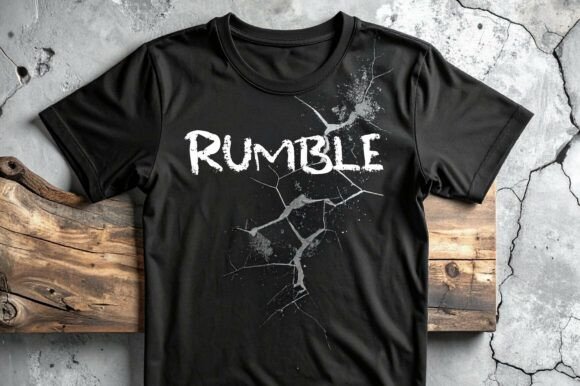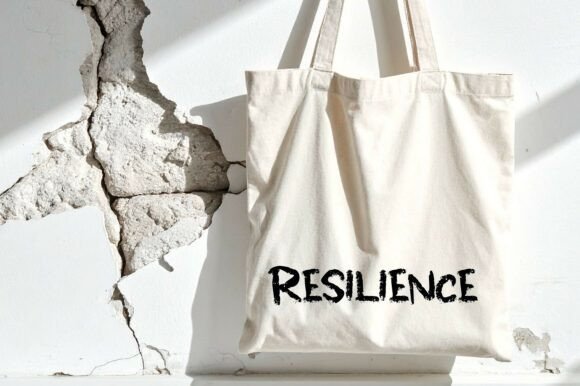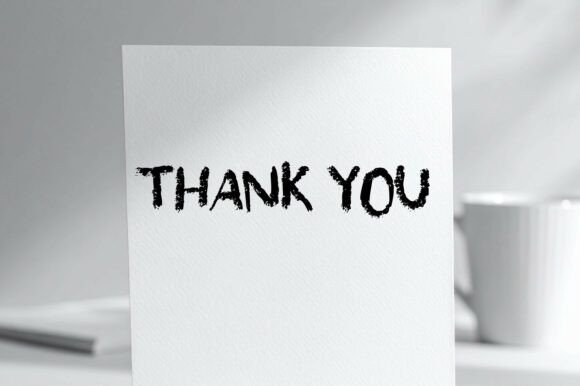
Unleash the Raw Power of Your Designs
Have you ever been inspired by the raw energy of a live music performance, the rush of adrenaline as you capture the perfect shot, or the unbridled excitement of a new creative project? For designers, those moments are what drive us to push boundaries and create something truly remarkable. And for those who crave a font that embodies that same unbridled spirit, look no further than the Berasa Gempa Font.
This singular display font is more than just a typeface – it’s an experience. With its weathered, rough-hewn texture and bold presence, the Berasa Gempa Font is the perfect tool for designers who want to add a grittier, indefinable edge to their work. From rock band logos to extreme sports branding, film posters to street-style graphic designs, this font delivers a defiantly bold statement that’s sure to leave a lasting impression.
Berasa Gempa Font Key Features
- Font Family: Berasa Gempa is a sans-serif font family designed to evoke a sense of movement and energy.
- Unique Characteristics: The font features a dynamic and fluid design, with letterforms that seem to shift and move, creating a sense of visual interest and energy.
Berasa Gempa Font Review
Overall, I think Berasa Gempa Font is an interesting choice for designers looking to add some unique flair to their projects. ✨ Here are some things that work well:
- The font’s bold, playful feel is perfect for creating attention-grabbing headlines and titles.
- The font’s weight and style variations offer a lot of flexibility, making it suitable for a wide range of design applications.
- The font’s uniqueness can help designers stand out from the crowd and create a memorable brand identity.
- The font’s boldness can make it difficult to read in small sizes or when used extensively throughout a design.
- The font’s uniqueness can also be a drawback, as some users may find it distracting or unpleasant to read.
- The font’s character set may not be as extensive as some other fonts, which could limit its usability in certain design contexts.
- ⚠️ Some characters may not render correctly in certain software or devices.
Overall, I think Berasa Gempa Font is a solid choice for designers who want to add some personality to their work. While it may not be suitable for every project, it’s a great option for those who want to create bold, eye-catching designs.
Tips for Getting the Most Out of Berasa Gempa Font
Use Berasa Gempa Font to add a unique and creative touch to your designs.
Combine Berasa Gempa Font with other creative elements to create a cohesive and engaging design.
Berasa Gempa Font is perfect for:
Creating eye-catching headlines and titles.
Designing unique and creative graphics.
Adding a personal touch to your presentations and documents.